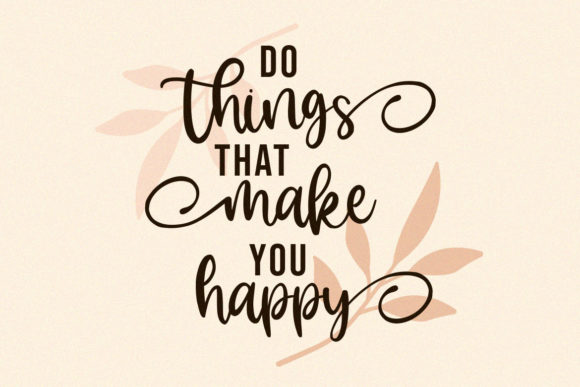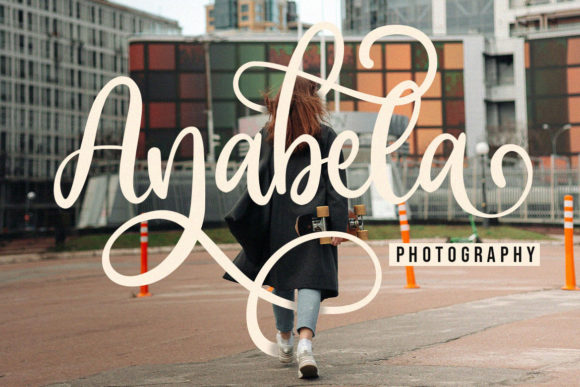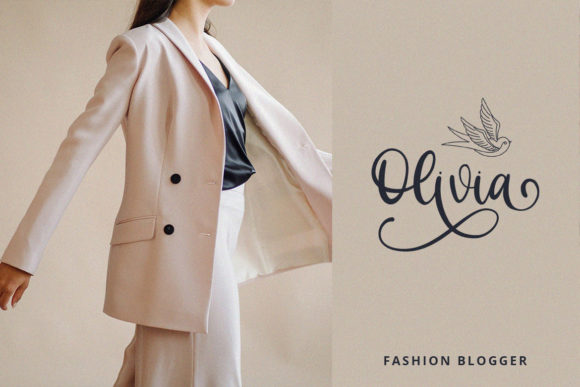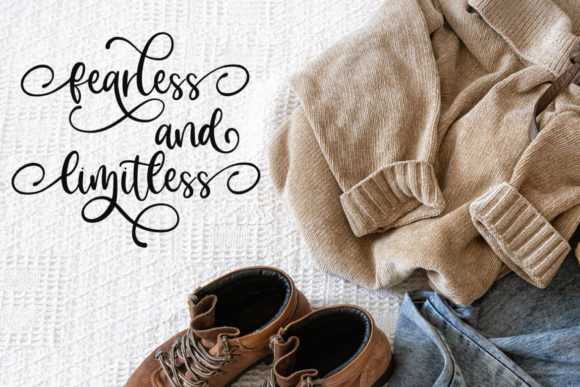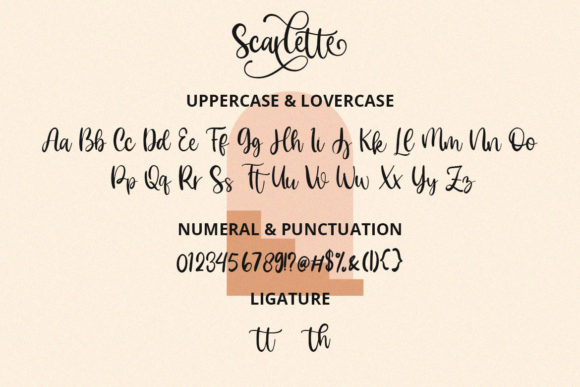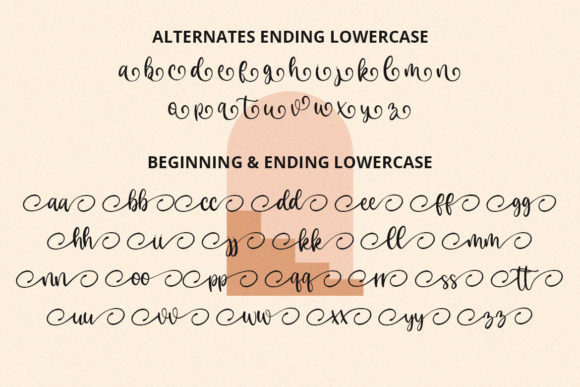
Introduction to Scarlette Font
There’s nothing quite like the thrill of starting a new creative project, with a blank canvas waiting to be filled with imagination and inspiration. For designers, the right font can be the spark that ignites the entire process. And that’s exactly what we’re excited to share with you today – the beautiful Scarlette Font.
As a sweet and romantic handwritten script font, Scarlette Font has a way of adding a touch of elegance and whimsy to any design project. With its casual yet refined feel, it’s the perfect choice for designers looking to create high-quality, visually appealing designs. And the best part? Scarlette Font is PUA encoded, making it incredibly easy to access all of the glyphs and swashes you need to bring your creative vision to life.
Key Features of Scarlette Font
- High-quality, unique font design ideal for creative projects and designs.
- Transparent background, making it suitable for use on any background image or color.
- Perfect for designers looking for a distinctive and elegant font for their designs.
- Comes in a single size, making it easy to use in various design applications.
- High-resolution design, suitable for printing and digital use.
- A valuable addition to any designer’s collection of design resources.
Honest Review: Scarlette Font
As a designer, I’m always on the lookout for high-quality design resources to elevate my creative projects. The Scarlette Font is one such resource that caught my attention.
- ✨ Unique and elegant design that adds a touch of sophistication to any project
- ✨ Compatible with various design software, making it a versatile choice for designers
- ✨ Can be used for both digital and print designs, including social media graphics and business cards
One of the standout features of the Scarlette Font is its transparent background, which makes it easy to customize and combine with other design elements. This feature is particularly useful for designers who want to create complex and layered designs.
However, I do have some reservations about the font’s limitations: ⚠️ limited character set and ⚠️ lack of support for some languages.
Scarlette Font is a versatile design resource that can be used in a variety of creative projects, including social media graphics, blog posts, and presentations. Its transparent background makes it easy to use in a range of design scenarios. With its high-quality design and free download option, Scarlette Font is a great resource for designers and non-designers alike.
To get the most out of Scarlette Font, experiment with different font sizes, colors, and styles to create unique and eye-catching designs. Use the font in combination with other design elements, such as images and graphics, to create visually appealing projects. With practice and patience, you can unlock the full potential of the Scarlette Font and take your designs to the next level.